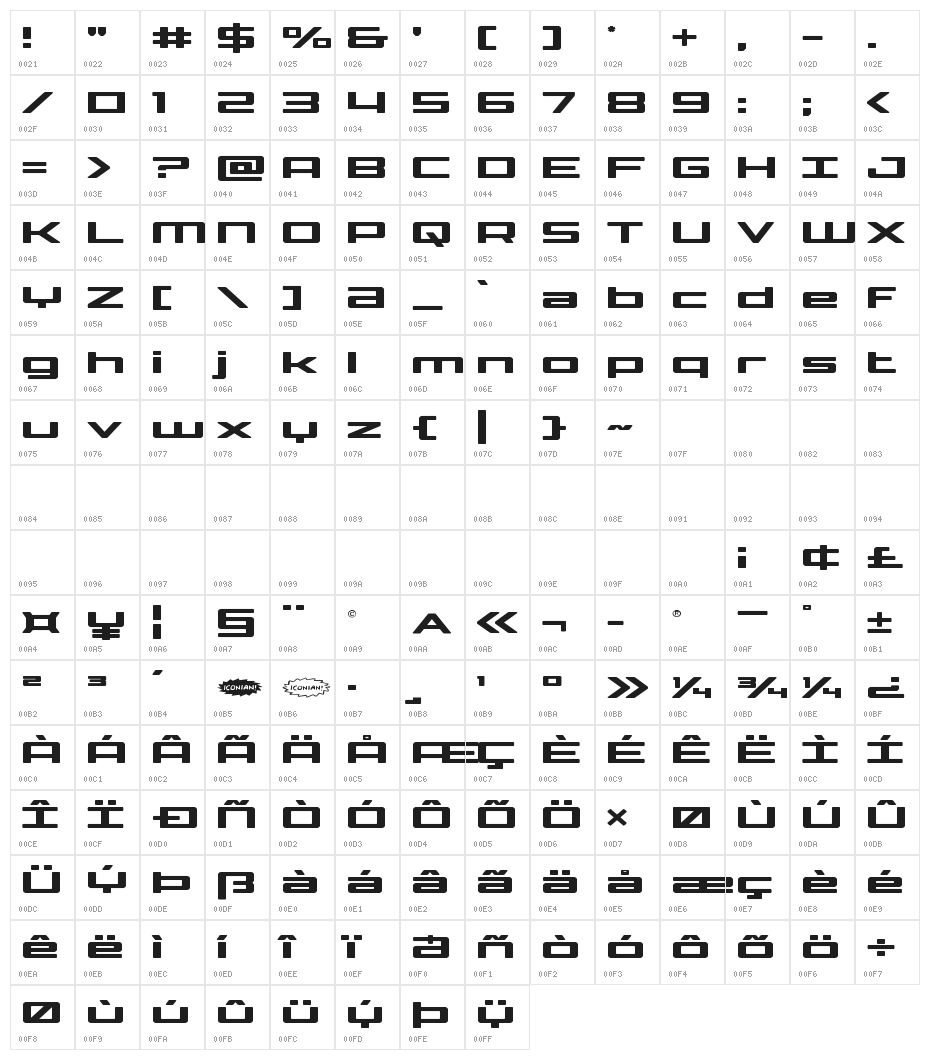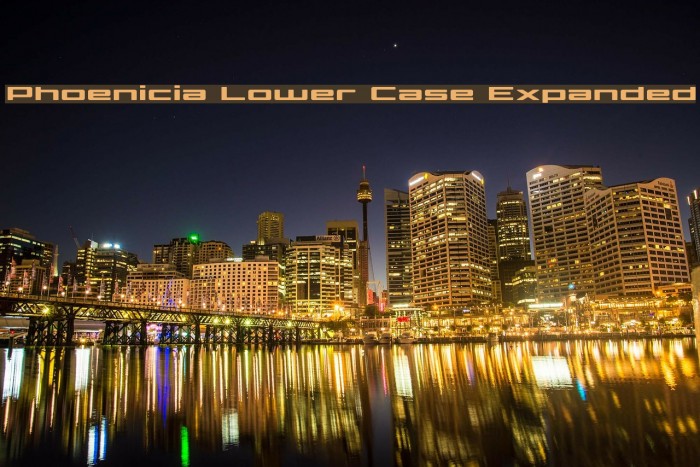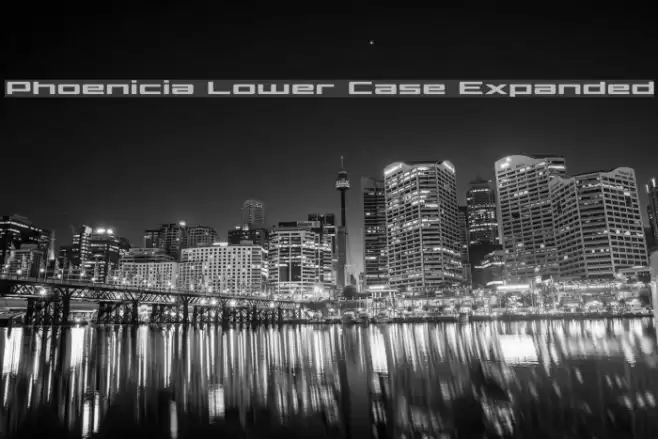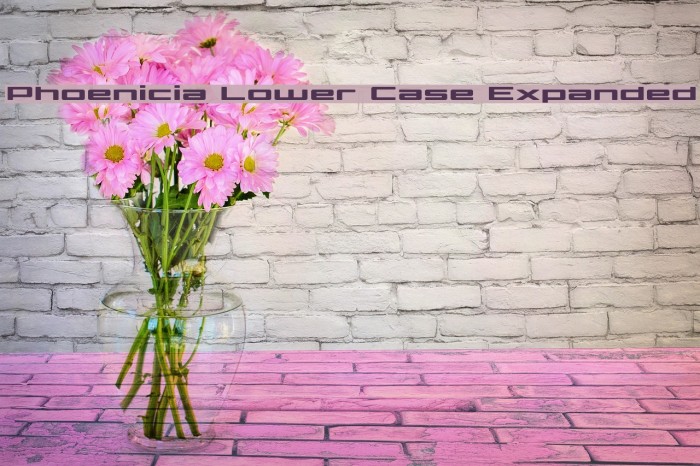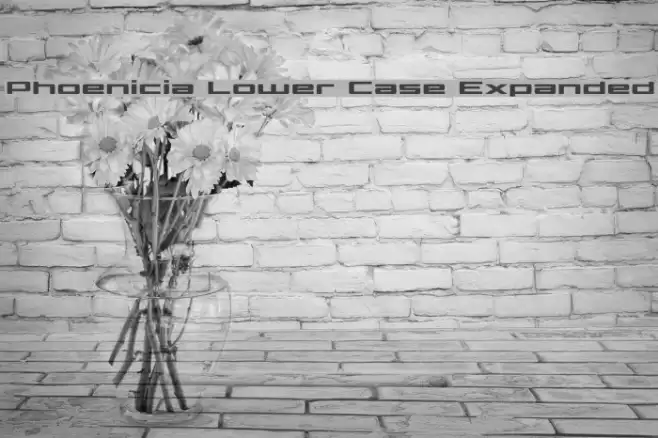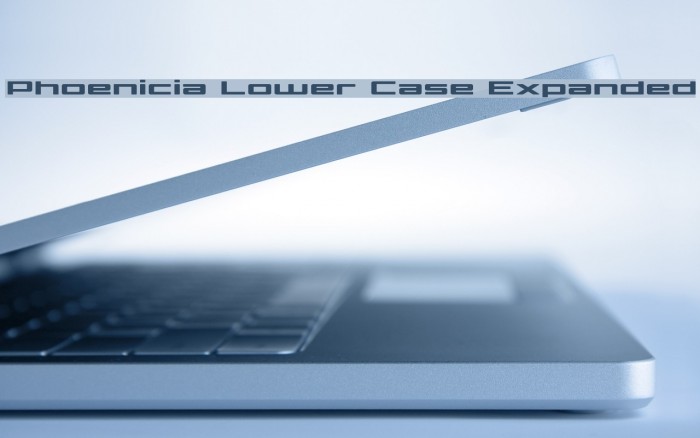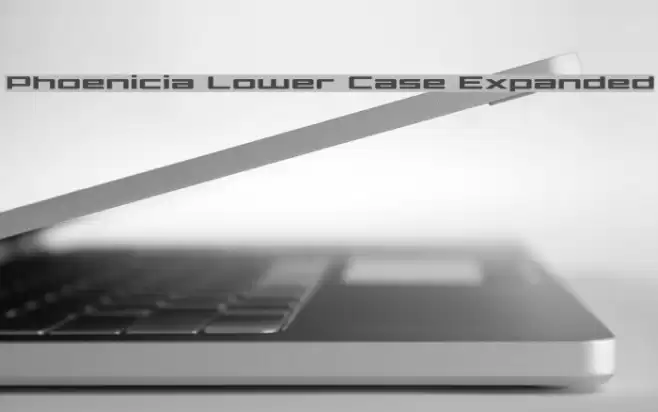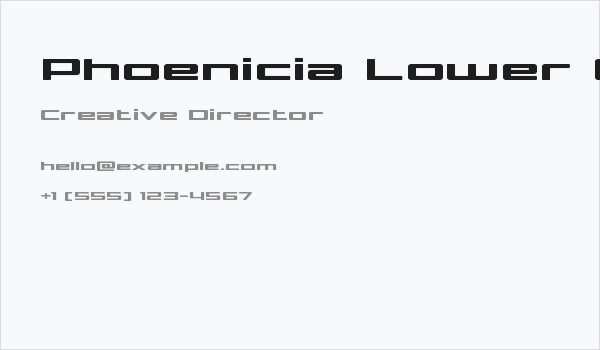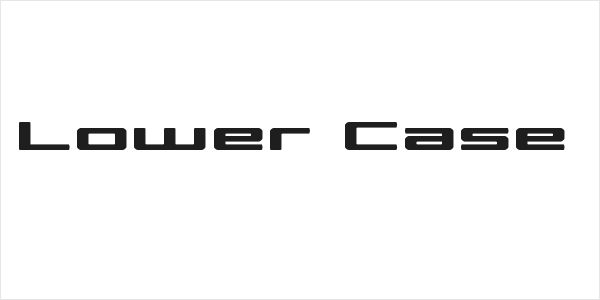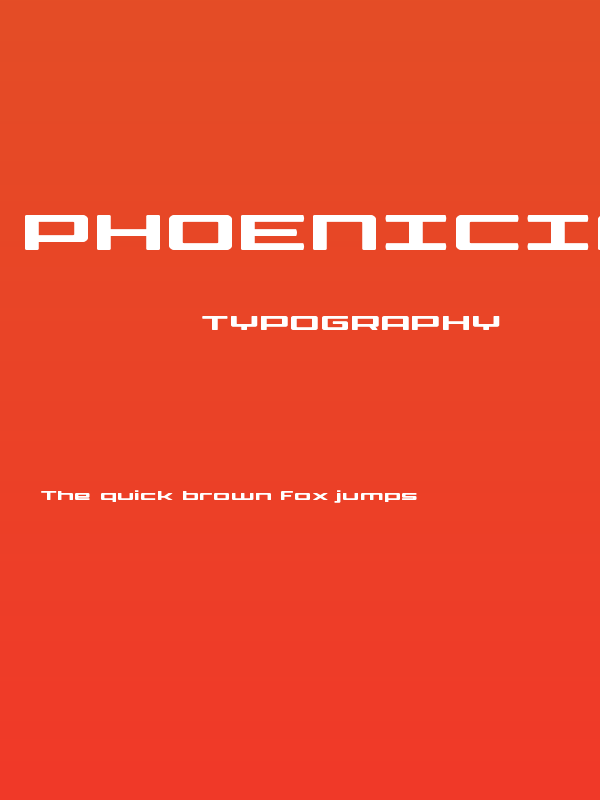
Phoenicia Lower Case Expanded Font
Phoenicia Lower Case Expanded Description
This font features a bold, geometric design with a futuristic aesthetic. The characters are uniformly structured, with a block-like appearance that emphasizes straight lines and right angles. The uppercase and lowercase letters maintain a consistent width, contributing to a cohesive and balanced look. The numerals and special characters follow the same design principles, ensuring uniformity across all glyphs. The font's expanded width allows for a spacious and open feel, making it suitable for various design applications where readability and impact are essential.
| Proposed Projects | Ideal for technology branding, sci-fi themed projects, video game interfaces, and modern advertising campaigns. |